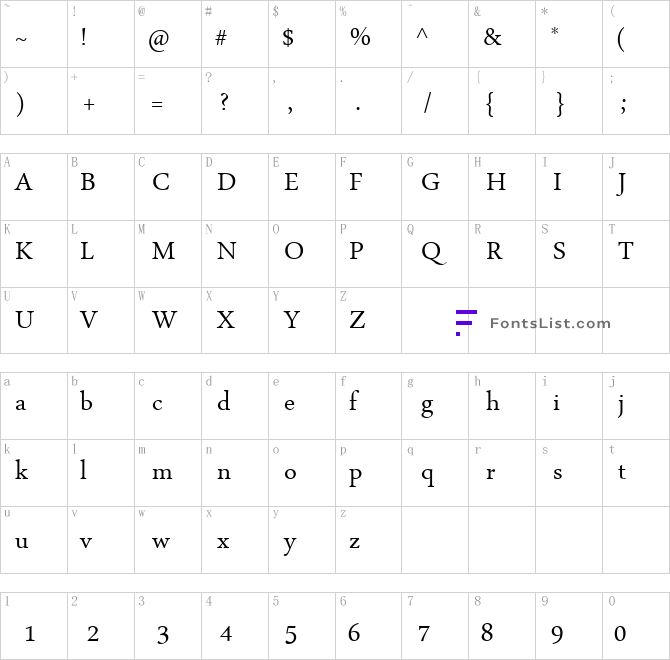
- Font Name:Arabic Typesetting
Arabic-Typesetting.ttf is a very beautiful artistic font, Arabic-Typesetting.ttf is widely used in the design and printing of various books and pictures,Arabic-Typesetting.ttf has a strong visual impact,Arabic-Typesetting.ttf is a commonly used font in newspapers, magazines and books, and is used in posters, e-commerce Poster design, store design, logo design, font design and other fields.Arabic-Typesetting.